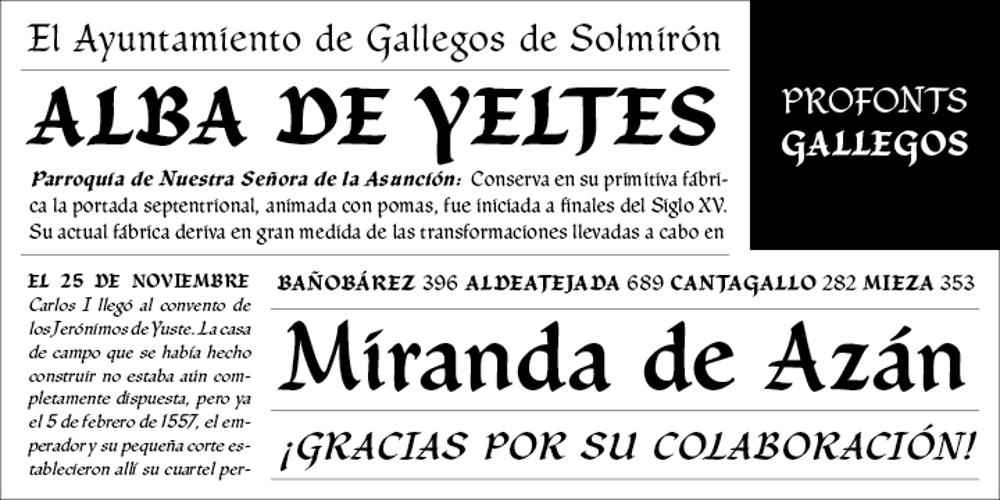
Gallegos Font Family was designed by Profonts Studio and published by profonts. Gallegos contains 6 styles and family package options. Gallego Pro is a classical, pen-drawn upright script useful for many applications, e.g. book titles, ads, magazines or any kind of display work.